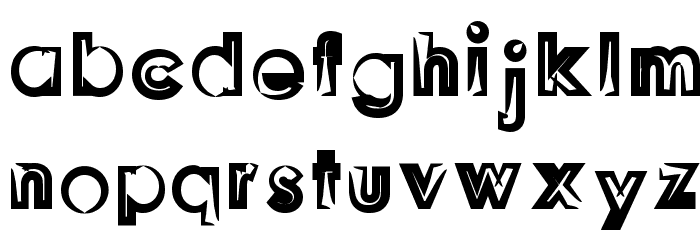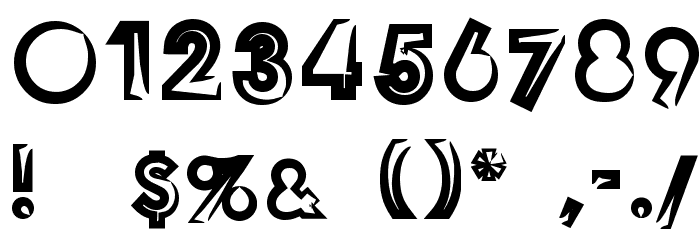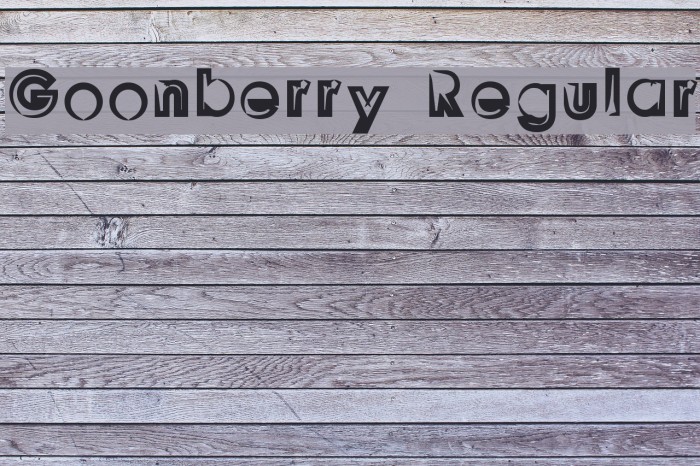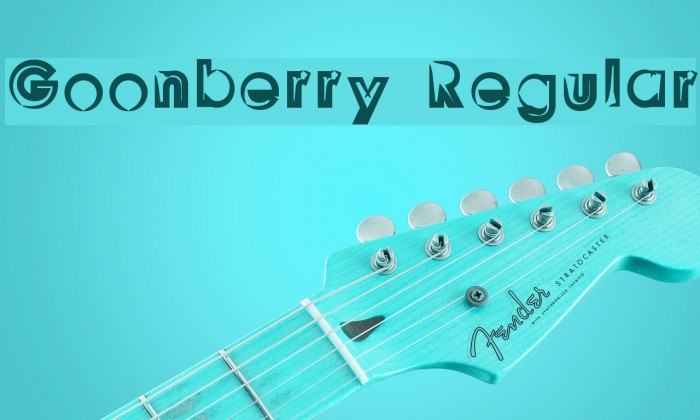
Goonberry Regular Font
This font features a bold and dynamic design with a distinct geometric style. Each character is crafted with a mix of sharp angles and smooth curves, creating a visually striking appearance. The uppercase letters are particularly prominent, with a strong presence that commands attention. The lowercase letters maintain the same boldness, ensuring consistency throughout. Numbers and special characters are equally bold, with unique shapes that add to the overall aesthetic. This font's unique style makes it ideal for projects that require a modern and edgy look.
A bold, geometric font with sharp angles and smooth curves, perfect for modern designs.